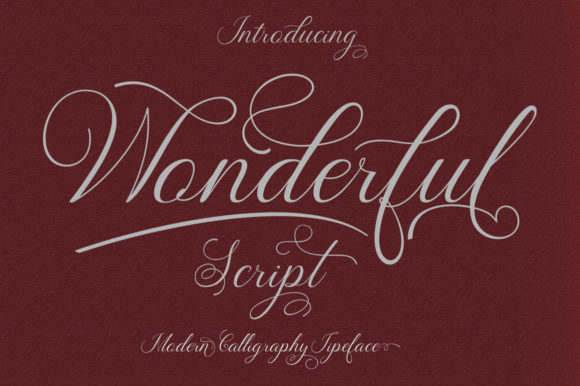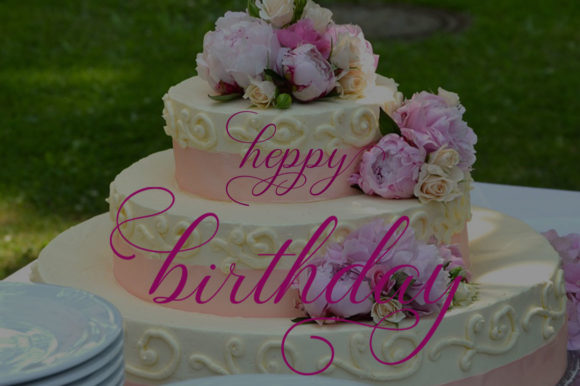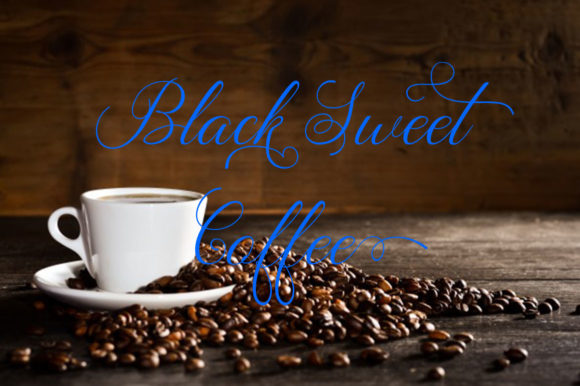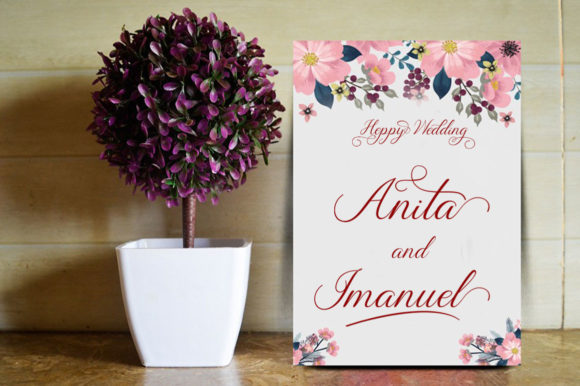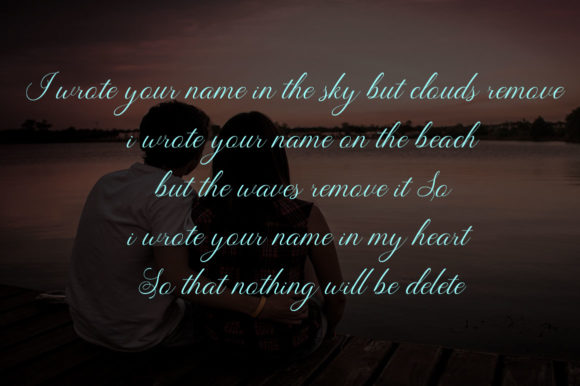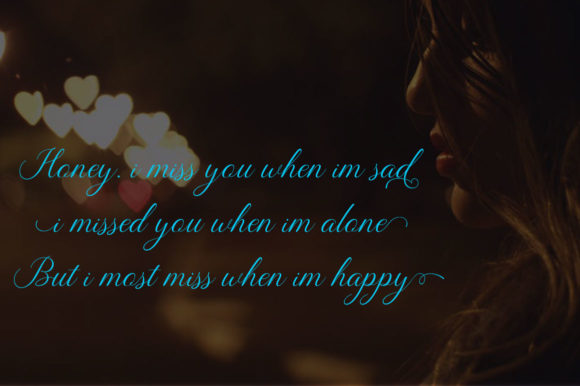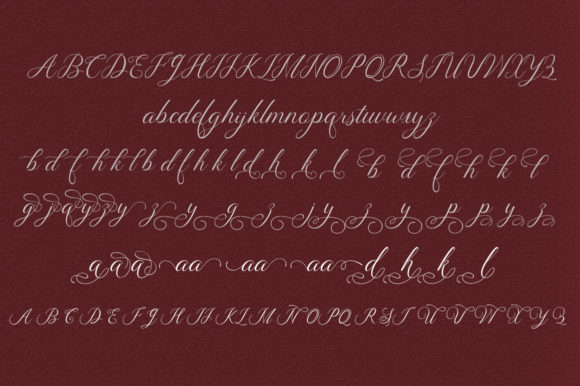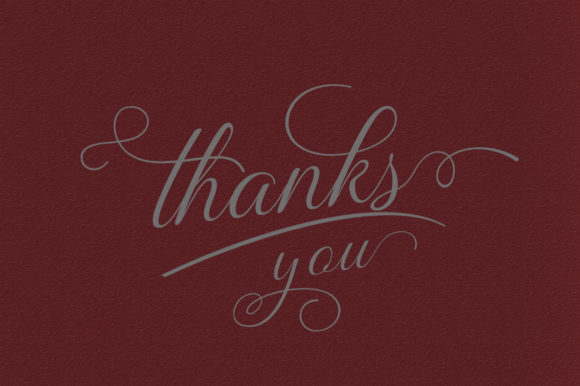
Wonderful Font
About Wonderful Font
The Wonderful is a modern calligraphy script. Its beautiful swashes give it a modern and elegant style.
Add a personal touch to your design with this natural handwritten font!